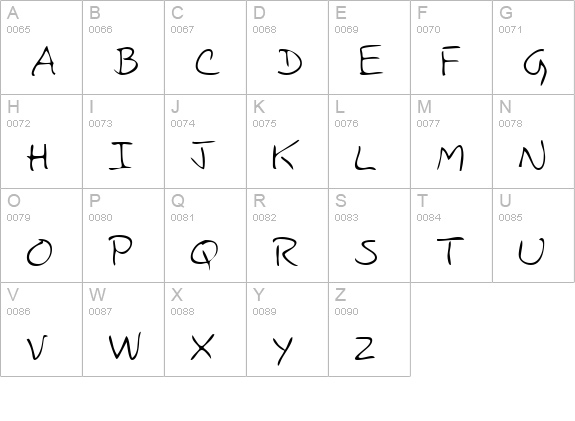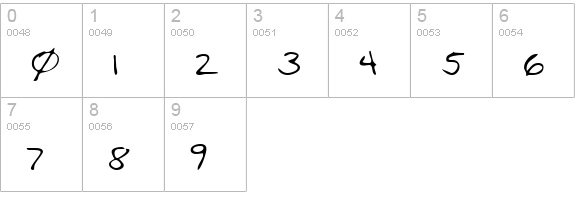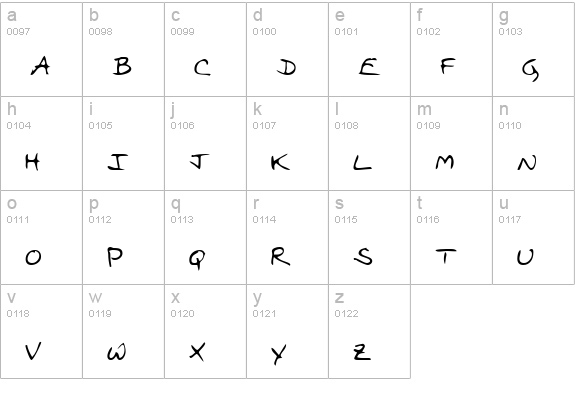
ThelmasHand Regular Font Details
ThelmasHand Regular is the standard, neutral variant in the ThelmasHand typeface family \xE2\x80\x94 well suited to general body text, paragraphs, and standard typographic work.
ThelmasHand Regular font is a charming and playful typeface that brings a whimsical touch to any design project. With its handwritten style and unique, organic strokes, ThelmasHand Regular adds a personal and friendly feel to your text. This font is perfect for adding a personal touch to invitations, greeting cards, logos, and more. Its versatility makes it suitable for both digital and print projects, ensuring that your designs stand out from the crowd. The best part is that ThelmasHand Regular is free! Yes, you read that right. This delightful font is freely available to download at FontsMarket.com. Whether you're a professional designer or a hobbyist, you can easily access this font and enhance your creativity without spending a dime. So why wait? Get your hands on ThelmasHand Regular today and let your imagination run wild. Whether you're adding a touch of whimsy to a project or simply looking to stand out, this font is sure to make a lasting impression. Download it for free at FontsMarket.com and start creating beautiful designs with ease.